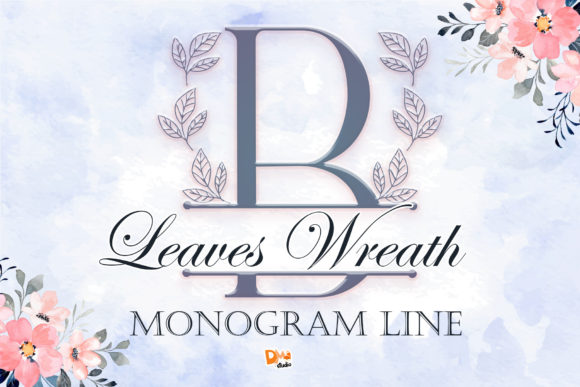
Garden Leaves Line: A Fresh Decorative Font for Makers
The morning light was just hitting my workbench when I opened the file for Garden Leaves Line. I had been struggling for days to find the right typography for a new line of soy wax candle labels. My usual go-to script fonts felt too formal, and the bold sans serifs I often use for modern branding lacked the organic warmth I wanted to convey. As soon as I typed "Lavender & Linen" into my design software, the transformation was immediate. This isn't just a set of characters; it is a complete visual experience where elegant letterforms intertwine with fresh, delicate leaf wreaths. For anyone who spends their days cutting vinyl, printing stickers, or designing wedding invitations, finding a typeface that does half the artistic work for you is a game-changer.
Garden Leaves Line falls squarely into the Decorative category of Fonts, but its utility goes far beyond simple decoration. It possesses a unique personality that feels both curated and wild, much like a garden that has been tended with love but allowed to grow naturally. The visual charm comes from the seamless integration of botanical elements directly into the baseline and terminals of the letters. When you use this typeface, you aren't just adding text; you are adding texture and life. For handmade sellers, this means your product packaging instantly communicates quality and attention to detail without needing complex layering in Illustrator or Procreate.
Bringing Botanical Elegance to Product Labels
One of the most practical applications I found for Garden Leaves Line was on small-batch product labels. Whether you are making artisanal soaps, small-batch jams, or boutique candles, the label is the first point of contact with your customer. Using a standard font often requires you to source separate clip art or draw floral elements by hand to frame the text. With this creative font, the framing is built-in. I tested it on a round sticker design for a honey jar, and the way the leaves curled around the brand name created a perfect, self-contained logo mark.
This efficiency is vital for packaging design where space is limited. On a small tag attached to a linen tote bag or a hang-tag for a jewelry piece, you need maximum impact with minimal real estate. Garden Leaves Line excels here because the decorative elements are part of the glyph itself, ensuring they scale perfectly with the text. However, a word of caution for my fellow Cricut and Silhouette users: because of the intricate leaf details, this font shines brightest when printed or used as a print-then-cut project. If you are attempting to weed this as pure vinyl, ensure your material is high-quality and your blade is fresh, as the fine lines of the leaves require precision. For best results on physical merchandise, consider using it for titles and short phrases rather than long paragraphs.
Elevating Wedding Stationery and Invitations
The wedding industry thrives on emotion and aesthetics, and typography plays a massive role in setting the tone for the big day. Garden Leaves Line is an exceptional choice for wedding stationery, particularly for save-the-dates, invitation suites, and welcome boards. Its mood is romantic yet grounded, avoiding the overly swirly excess of some traditional scripts while maintaining a high level of sophistication. Imagine a farmhouse-style wedding welcome sign where the couple's names are rendered in this font; the leafy accents immediately tie into outdoor or garden-themed decor.
For invitation designers creating digital downloads or printable PDFs, this display font offers a premium look that justifies a higher price point. Clients are often looking for something unique that doesn't look like a default system font. By incorporating Garden Leaves Line into your template designs, you offer a cohesive look where the typography acts as the primary illustration. It works beautifully for headers like "You Are Invited" or "Save the Date," drawing the eye instantly. Just remember to pair it wisely. Because the font is so detailed, it needs breathing room. Surround it with plenty of white space to let the leafy flourishes stand out without cluttering the design.
Strategic Font Pairing for Brand Identity
While Garden Leaves Line is stunning on its own for headlines and logos, building a complete brand identity often requires pairing it with simpler typefaces. The golden rule of font pairing is contrast. Since this font is ornate and organic, it pairs exceptionally well with a clean, geometric sans serif font for body text. Think of using a minimalist sans serif for the ingredients list on a soap label or the event details on an invitation, letting Garden Leaves Line handle the emotional heavy lifting for the titles.
Alternatively, for a more vintage or editorial look, you might pair it with a classic, low-contrast serif font. This combination works wonders for editorial design in lookbooks or zines sold in craft shops. Avoid pairing it with another highly decorative script or handwritten font, as this can create visual competition that makes the design feel messy. The goal is to let the botanical elements of Garden Leaves Line be the star of the show. When used in social media graphics or web design, this pairing strategy ensures your message remains legible across different screen sizes while maintaining that cohesive, crafty aesthetic.
Maximizing Readability and Commercial Use
Readability is another crucial factor. While the leaves add immense character, they can reduce legibility at very small sizes. For items like ingredient lists, care instructions, or lengthy addresses on envelopes, stick to a simpler supporting font. Reserve Garden Leaves Line for moments where you want to create an emotional connection—the brand name on a tote bag, the title of a planner page, or the main greeting on a holiday card. When designing for printable wall art, this font can serve as the entire image, with the text acting as the illustration itself, perfect for kitchen prints or nursery decor featuring nature quotes.